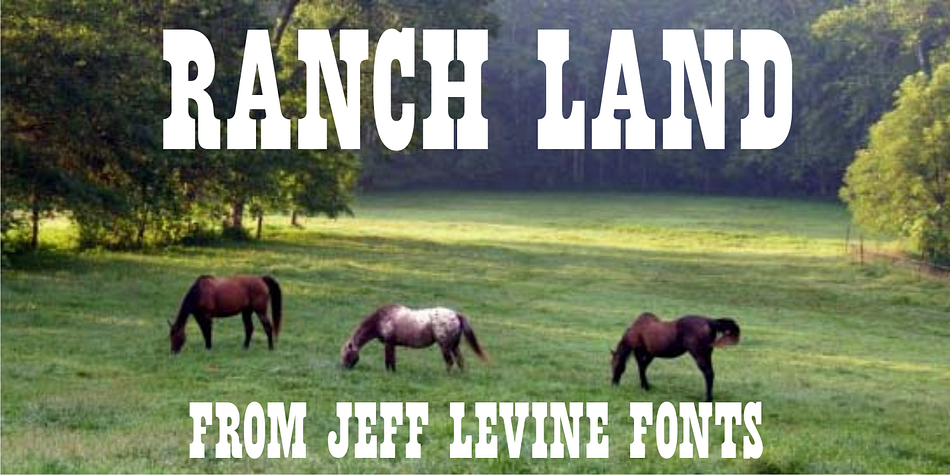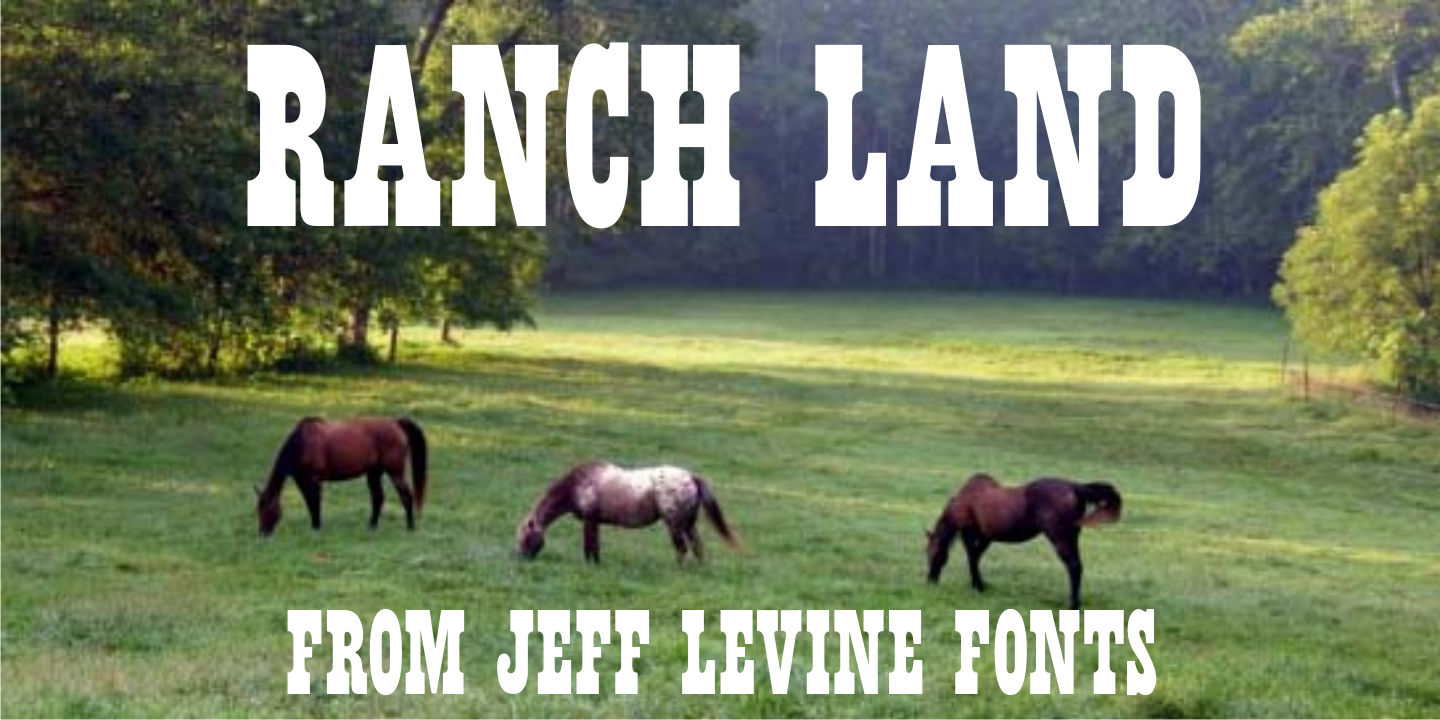
Ranch Land JNL is a western and wood type font published by Jeff Levine Fonts.
Ranch Land JNL is based on a classic French Clarendon wood type, many of which were popular in the 1800s and are now associated with either Western motifs or circus events.